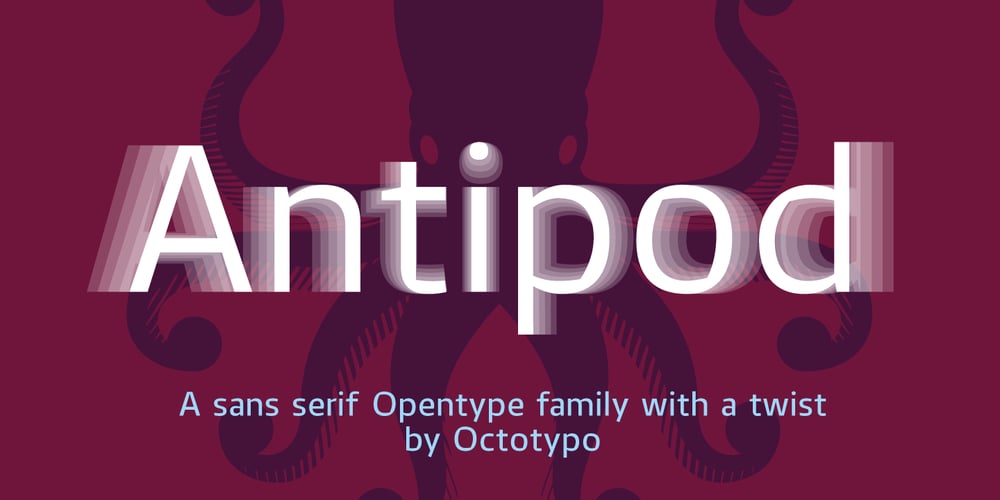
Antipod
Antipod font
Antipod Font Family was designed by Julien Janiszewski and published by Octotypo. Antipod contains 10 styles and family package options. Antipod is a versatile sans serif family designed with the stroke of the nib in mind.The early sketches were made with a reed pen and then stabilised to keep the specific junctions between verticals and horizontals shapes.The design of the letters constantly balance between curves and inner sharp corners and the contrast of one is cohabiting with the other to give Antipod its specific design.When Antipod is set at small size its specific are almost unnoticeable but the text has a very particular type colour.And this specificity is useful when setting texts for display, to give your design a strong personality.Each weight includes a set of extra glyphs to make your text settings more singular. It also comes with extended language support, tabular figures, fractions and more. It is suited for any work editorial design, signage, corporate as well as onscreen applications.